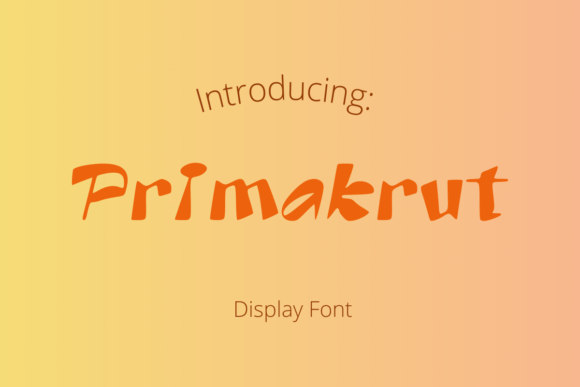
Primabrut: A Bold Display Font for Standout Branding
As a small business owner who’s designed everything from coffee bag labels to Instagram story templates, I know how much a single font choice can shape how customers see your brand—not just in looks, but in trust, energy, and intention. That’s why I keep coming back to Primabrut: a sharp, angular display font that doesn’t whisper—it declares. It’s not meant for paragraphs of fine print or long website copy. But where it shines? Every high-impact, customer-facing moment that needs to feel intentional, modern, and unmistakably *yours*.
Primabrut’s letterforms are deliberately bold and geometric—think clean cuts, tight spacing, and confident angles. It carries an urban, contemporary mood without leaning into cliché streetwear tropes. It feels grounded, not gimmicky. That makes it ideal for businesses that want to signal confidence and clarity: a boutique selling minimalist apparel, a ceramicist launching limited-edition mugs, a wellness coach building a no-nonsense personal brand, or a craft brewery naming its flagship IPA. The font doesn’t try to be friendly or whimsical—it’s direct, memorable, and visually efficient.
In real-world use, Primabrut works best where attention is short and impact is essential. Use it for your logo (especially if you’re skipping illustrations or icons), product name tags on handmade soap bars, the headline on a seasonal menu board, or the bold title on a Pinterest-ready social graphic. On packaging, it holds up beautifully at small sizes—say, 8–10 pt on a candle label—as long as you avoid ultra-thin weights and stick with the medium or bold variants. On mobile screens, it reads clearly in banners and story text overlays because its shapes are distinct and uncluttered. Just avoid using it for body text, ingredient lists, or legal disclaimers: it’s a display font, not a workhorse.
I’ve used Primabrut for three very different projects—and each time, consistency improved immediately. First, for a local café’s rebrand: we applied it only to the shop name on signage, takeaway cups, and the top banner of their website. Paired with a warm, open sans serif (like Inter or Poppins) for all supporting text, the result felt both current and approachable—not cold or aggressive. Second, for a small-batch skincare line: Primabrut became the hero on front-of-pack labels, while a quiet serif (like Lora or Merriweather) handled usage instructions and ingredient lists. Customers told us the packaging “looked like it belonged on a curated shelf,” not a crowded Amazon listing. Third, for my own coaching business: I reserved Primabrut strictly for workshop titles and email subject lines—never for full email bodies or PDF handouts. That tiny, deliberate contrast made every announcement feel elevated and intentional.
Font pairing matters—and with Primabrut, simplicity wins. Think of it as the statement jacket in your type wardrobe: pair it with something neutral and highly legible underneath. A clean, neutral sans serif (like Montserrat, Open Sans, or even system fonts like Helvetica Neue) balances its intensity without competing. If your brand leans more editorial or artisanal, try a modest serif—nothing too ornate—with generous letter spacing and moderate contrast. Avoid pairing Primabrut with other decorative, condensed, or script fonts; that creates visual noise, not harmony. And never force it into tight spaces with low-resolution output—test print samples first, especially for stickers or woven labels.
Before rolling Primabrut across your entire brand, run two quick tests. First, print a mock-up of your most common label (e.g., a 2” x 3” product tag) at actual size and hold it at arm’s length. Does the word still read instantly? Second, post a sample graphic on Instagram *as a story*, then view it on your phone—not zoomed in, not in preview mode. If the message lands in under two seconds, you’re good. If not, adjust weight, size, or spacing. Small tweaks make a big difference when your audience is scrolling fast.
What sets Primabrut apart isn’t just its look—it’s how efficiently it builds recognition. When your logo, packaging, and social posts share the same strong typographic voice, customers start connecting the dots faster. They don’t need to reread your name. They don’t second-guess whether that Instagram post is really *you*. That consistency builds professionalism—not because it looks expensive, but because it looks *decided*. In a sea of generic fonts and overdesigned templates, choosing a distinctive yet purpose-built display font like Primabrut says: “I know who I am, and I show up with intention.”
It won’t fix weak messaging or inconsistent colors—but paired with thoughtful design choices, Primabrut helps your brand land with clarity, cohesion, and quiet confidence. Whether you’re launching your first Etsy shop or refreshing a decade-old bakery identity, treat it as a strategic tool: not just decoration, but one of your most visible, repeatable brand assets.